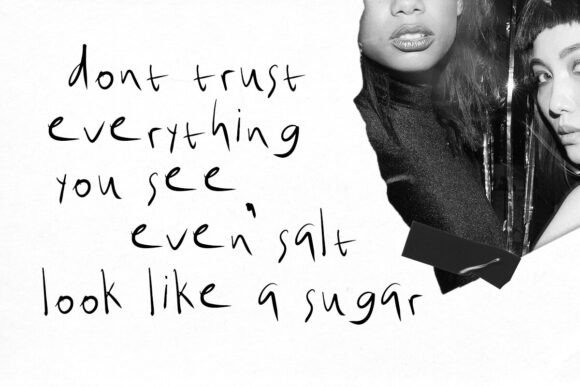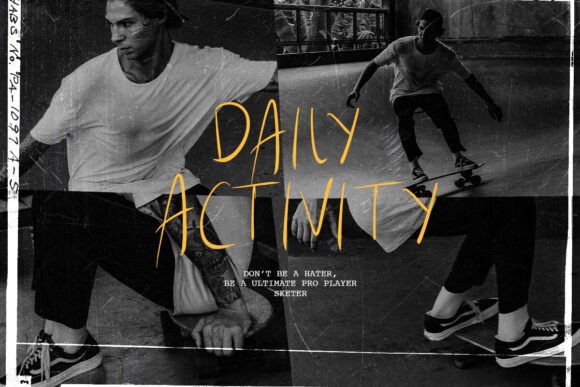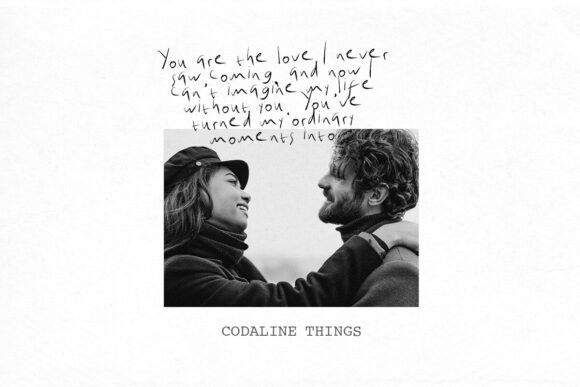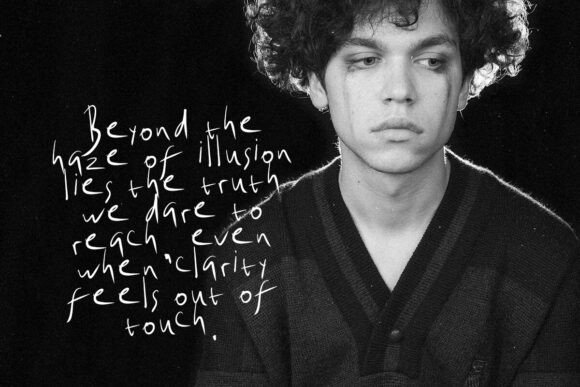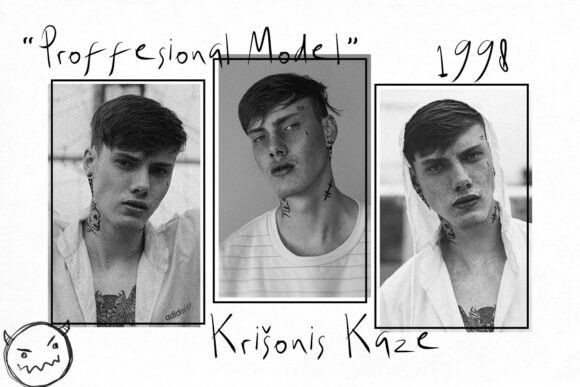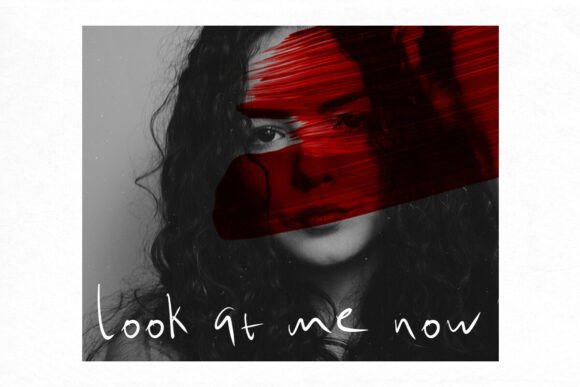
Introduction to More Than Words Font
Have you ever stared at a blank canvas, searching for the perfect font to bring your creative project to life? The struggle is real, but what if I told you that the perfect font is just a click away? Enter the “More Than Words Font,” a unique, handwritten font that embodies the spirit of raw, unbridled creativity.
With its messy, grunge style, this font is perfect for designers who want to add a touch of boldness and character to their work. Whether you’re working on a branding project, packaging design, or a unique artistic expression, the “More Than Words Font” is an invaluable resource that can take your creative vision to the next level. And the best part? It’s free to download, making it an accessible design resource for creatives of all levels.
What sets this font apart is its high-quality, transparent background, allowing you to overlay it seamlessly on any design element. Whether you’re a seasoned designer or just starting out, the “More Than Words Font” is a valuable addition to your design arsenal.
Key Features of More Than Words Font
- Unique, hand-drawn design for creative projects, making it a great design resource.
- High-quality font with transparent background, ideal for use on any background.
- Comes in multiple font styles and weights, allowing for versatility in design applications.
- Supports a wide range of languages, making it suitable for international creative projects.
Honest Review: More Than Words Font
As a designer, I’m always on the lookout for high-quality design resources to elevate my creative projects. Recently, I stumbled upon the More Than Words Font, and I was excited to put it to the test.
- Unique and elegant design aesthetic: The More Than Words Font has a beautiful, hand-drawn feel that sets it apart from more generic fonts.
- High quality: The font is well-crafted and looks great at a variety of sizes and resolutions.
- Transparency issues: I noticed that the font’s transparent background can sometimes show through to the underlying design, which can be distracting.
- Limited language support: The font only supports a limited range of languages, which may be a limitation for designers working on international projects.
Overall, I’m impressed with the More Than Words Font’s unique design and high quality. While it has some limitations, it’s a great resource for designers looking to add a touch of elegance to their creative projects. With a little creativity and planning, I think this font can be a valuable addition to any design resource collection.
The More Than Words Font is ideal for use in wedding invitations, baby shower invitations, and other creative projects that require a beautiful, elegant font. It’s also great for use in social media graphics, blog posts, and other online content.